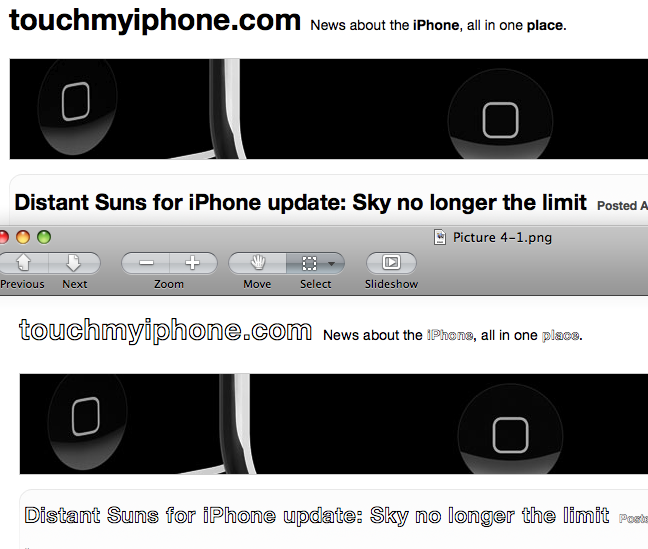
I'm on a MBP running OSX 10.5. I just installed a new hard drive and used Time Machine to restore my system. After doing so, my fonts got all screwed up. In various places, the font is only a hollow, thin outline. I've had a similar problem before with the Dashboard and fixed it by disabling Helvetica Neue in Font Book. Now the issue showed up in Google Chrome on the site Digg.com where the bold font is displayed. I'm sure it will show up on other sites too, but haven't found any more yet. I couldn't figure out how to post a screen shot, but here is basically what it looks like from another post:
I checked in other browsers and it is only specific to Chrome. Any idea about how I can fix this?